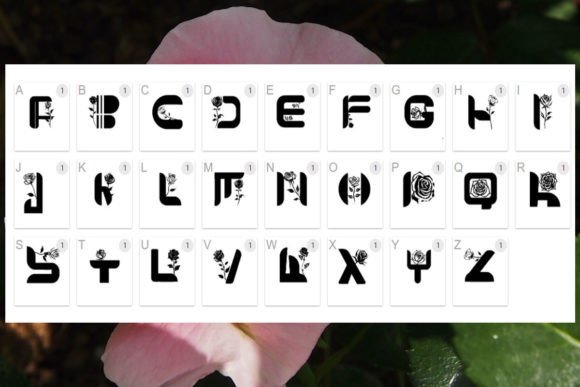
Crazy Rose Font: The Ultimate Decorative Font for Crafty Designers
Are you a designer or crafter looking for a unique and versatile font to elevate your creative projects? Look no further than the Crazy Rose Font! This adorable decorative font is bursting with charm and character, featuring an abundance of roses that will add a touch of elegance and whimsy to any design.
What is Crazy Rose Font?
Crazy Rose Font is a one-of-a-kind decorative font that showcases a beautiful collection of roses in various styles and arrangements. This font is perfect for crafty designers and enthusiasts who want to add a personal touch to their projects. With its playful and romantic vibe, Crazy Rose Font is sure to captivate your audience and make your designs stand out.
Crazy Rose Font is a versatile and feature-rich font that offers a range of benefits for designers and crafters. Here are some of its key features:
- Adorable Rose Designs: The font features a vast collection of rose designs, including single roses, rose bouquets, and intricate rose patterns.
- High-Quality Graphics: The font is designed with high-quality graphics, ensuring that your designs look crisp and clear even at large sizes.
Applications of Crazy Rose Font
Crazy Rose Font is an incredibly versatile font that can be used in a variety of applications, including:
- Shirt Patterns: Add a touch of elegance to your shirt designs with Crazy Rose Font.
- Bag Designs: Create beautiful and unique bag designs with the font’s adorable rose patterns.
- Mugs and Ceramics: Add a personal touch to your mug and ceramic designs with Crazy Rose Font.
- Greeting Cards: Create stunning greeting cards for special occasions, such as weddings, anniversaries, and birthdays.
- Planner Decorations: Add a touch of whimsy to your planners and journals with the font’s beautiful rose designs.
- Unique Occasion Card Adornments: Use Crazy Rose Font to create beautiful and unique card adornments for special occasions.
Why Choose Crazy Rose Font?
With so many fonts available, why choose Crazy Rose Font? Here are just a few reasons why this font stands out:
- Unique and Exclusive: Crazy Rose Font is a one-of-a-kind font that will make your designs stand out from the crowd.
- High-Quality Graphics: The font features high-quality graphics that will ensure your designs look professional and polished.